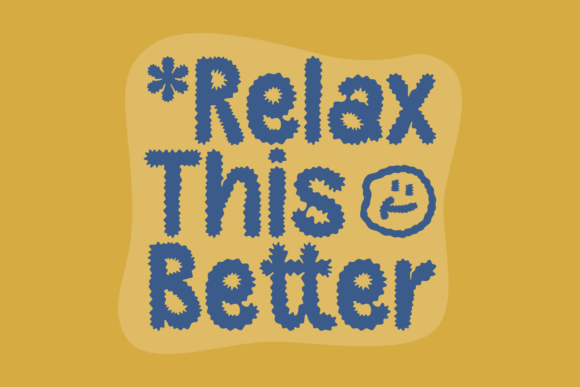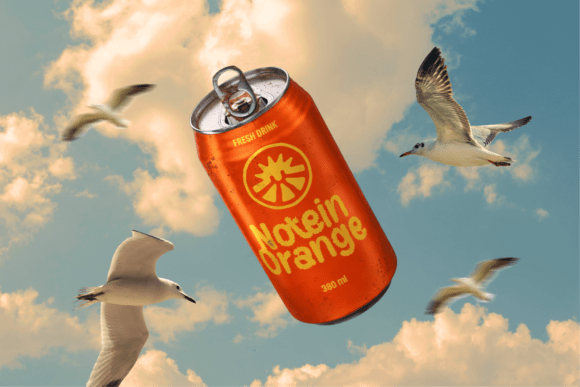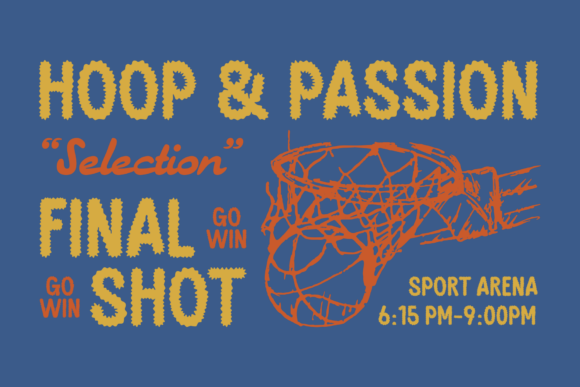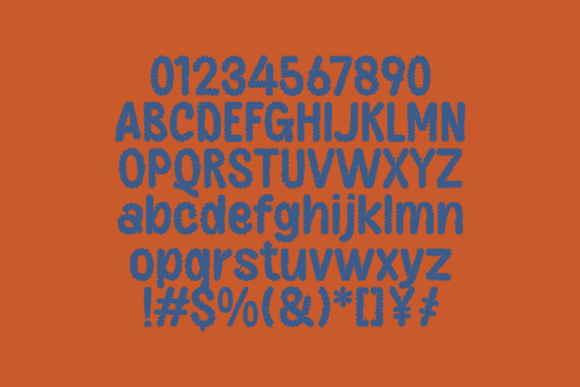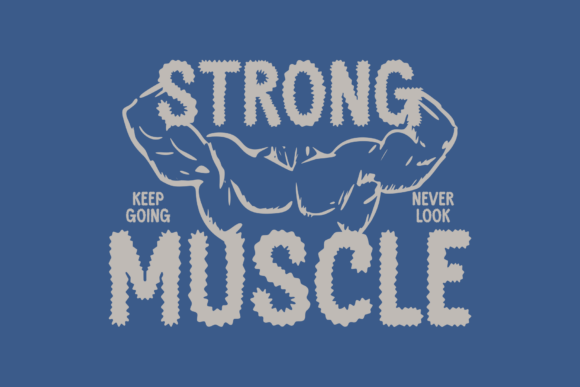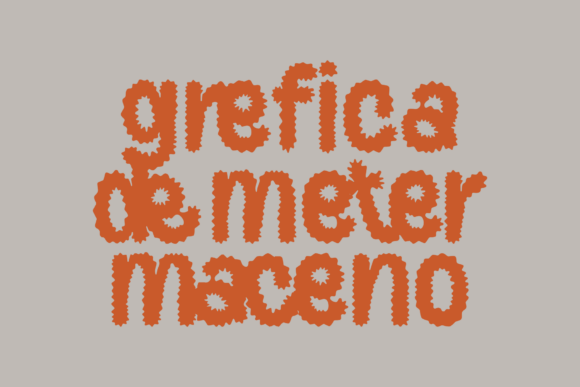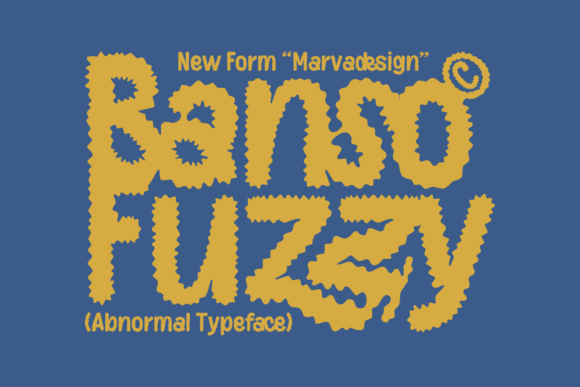
Introducing Banso Fuzzy: The Playful Display Typeface
Are you tired of using the same old fonts for your designs? Look no further than Banso Fuzzy, an experimental display typeface that’s sure to add a touch of playfulness and uniqueness to your projects. With its bold, inflated letterforms and irregular, fuzzy edges, Banso Fuzzy creates a visual texture that’s both chaotic and captivating.
The Design Behind Banso Fuzzy
Banso Fuzzy is defined by its soft, organic contours and rough, spiky detailing, giving it a handcrafted and almost tactile feel. The font’s heavy weight and tight spacing enhance its strong visual impact and legibility at large sizes, making it especially effective for expressive headlines, posters, and branding that aim to convey energy, uniqueness, and a fun, unconventional personality.
Key Features of Banso Fuzzy
- Experimental Display Typeface: Banso Fuzzy is an experimental font that’s designed to push the boundaries of traditional typography.
- Bold and Inflated Letterforms: The font’s bold and inflated letterforms create a strong visual impact that’s perfect for headlines and titles.
- Irregular and Fuzzy Edges: The irregular and fuzzy edges of Banso Fuzzy add a touch of playfulness and uniqueness to the font.
- Handcrafted and Tactile Feel: The soft, organic contours and rough, spiky detailing give Banso Fuzzy a handcrafted and almost tactile feel.
- Multilingual Support: Banso Fuzzy supports multiple languages, making it a great choice for designers who work with international clients.
- Ligatures and More: The font also features ligatures, uppercase, and lowercase letters, making it a versatile choice for a wide range of design projects.
Use Cases for Banso Fuzzy
Banso Fuzzy is a versatile font that’s suitable for a wide range of design projects, including:
- Headlines and Titles: The font’s bold and inflated letterforms make it perfect for headlines and titles that need to grab attention.
- Posters and Flyers: Banso Fuzzy is a great choice for posters and flyers that need to convey energy and uniqueness.
- Branding and Logo Design: The font’s playful and unconventional personality makes it a great choice for branding and logo design projects that need to stand out.
Tips for Using Banso Fuzzy
Here are a few tips for using Banso Fuzzy in your designs:
- Use it for emphasis: Banso Fuzzy is a bold font that’s perfect for use in headlines and titles. Use it to add emphasis and draw attention to key messages.
- Experiment with colors: The font’s playful and unconventional personality makes it a great choice for use with bright and bold colors.
- Pair it with other fonts: Banso Fuzzy can be paired with other fonts to create a unique and interesting visual effect. Try pairing it with a clean and simple font to create contrast.
Banso Fuzzy is a unique and playful display typeface that’s sure to add a touch of energy and unconventional personality to your designs. With its bold and inflated letterforms, irregular and fuzzy edges, and handcrafted feel, it’s the perfect choice for designers who want to push the boundaries of traditional typography. So why not give Banso Fuzzy a try and see how it can add a touch of playfulness and uniqueness to your next design project?